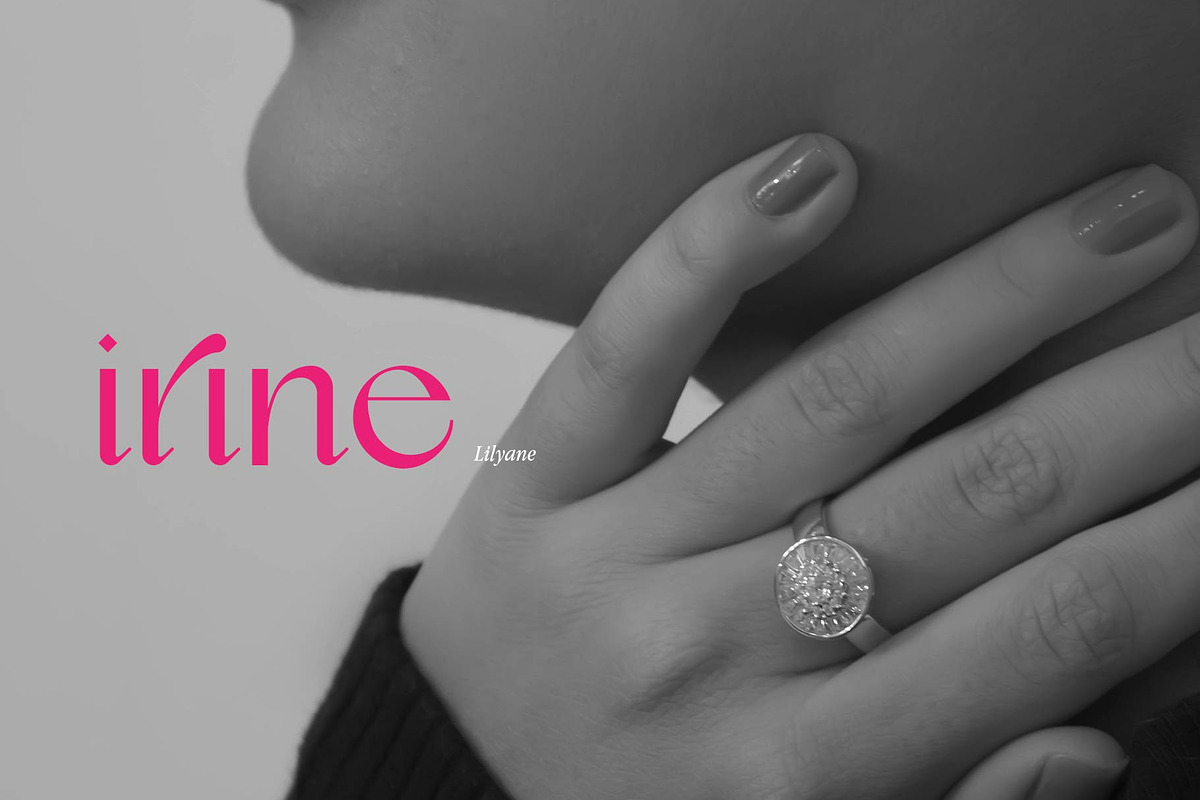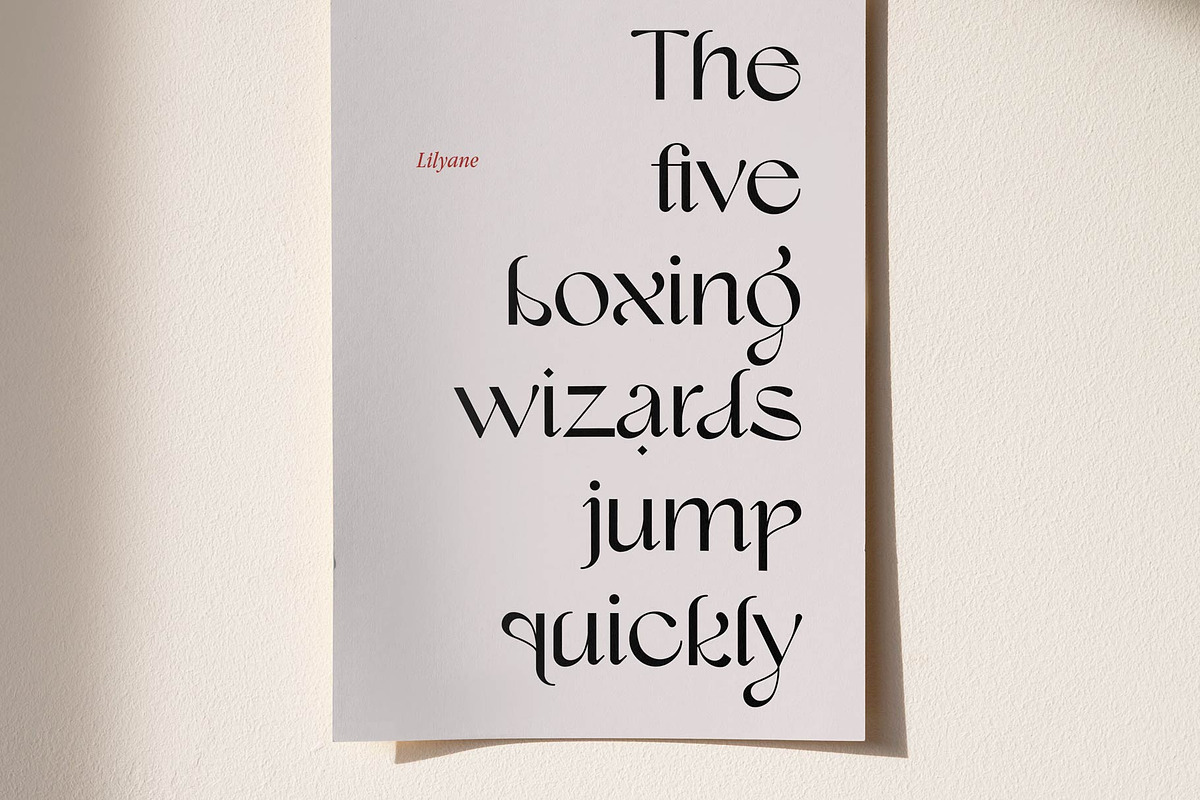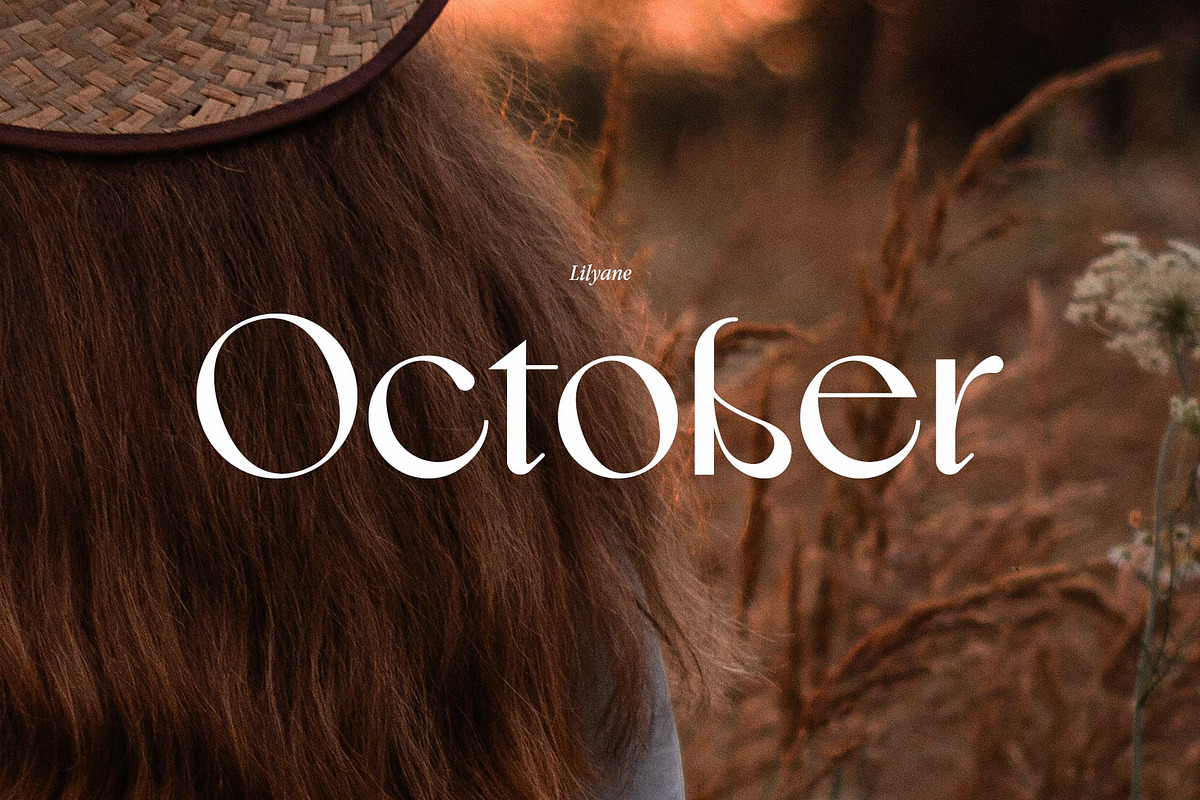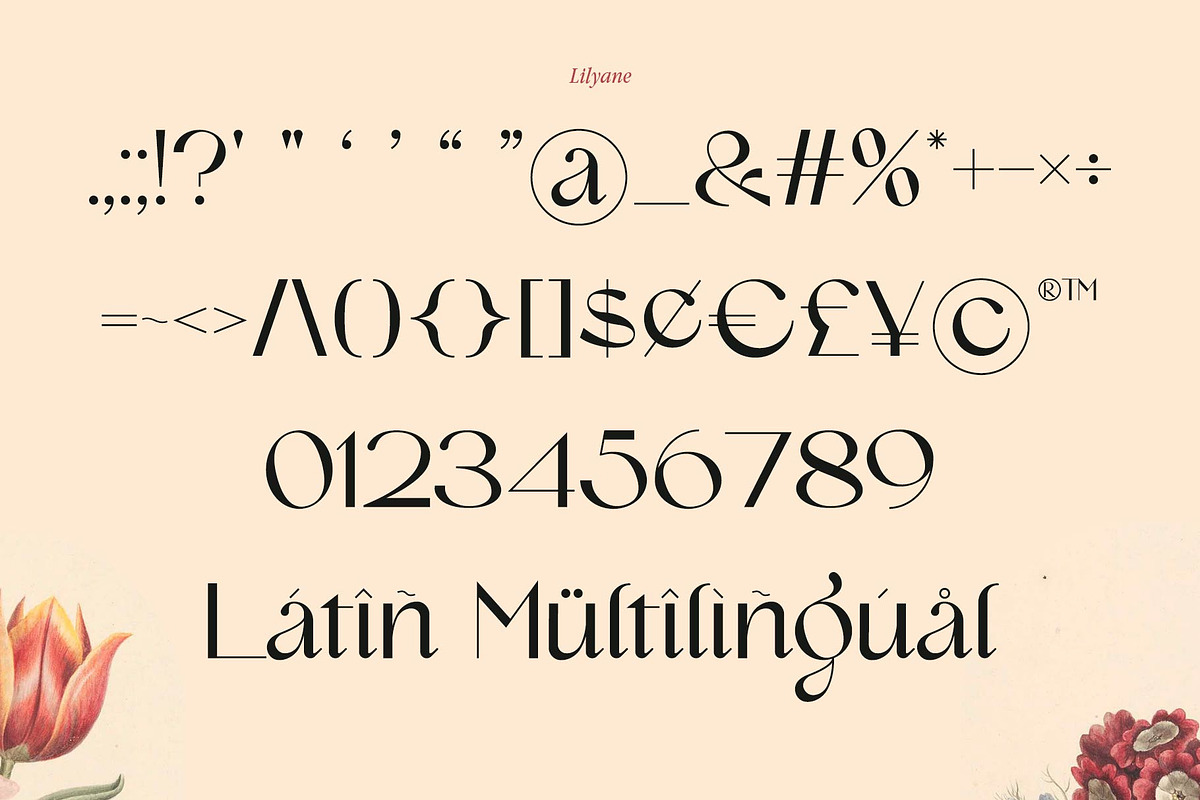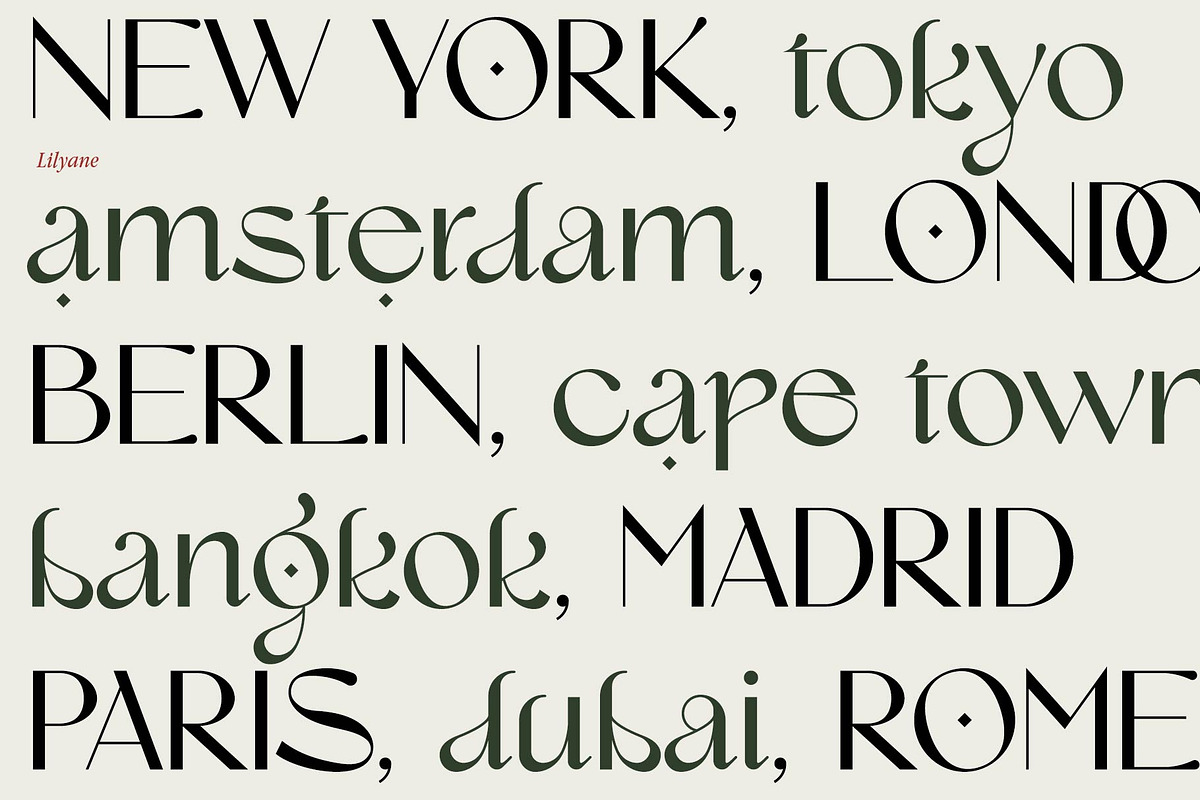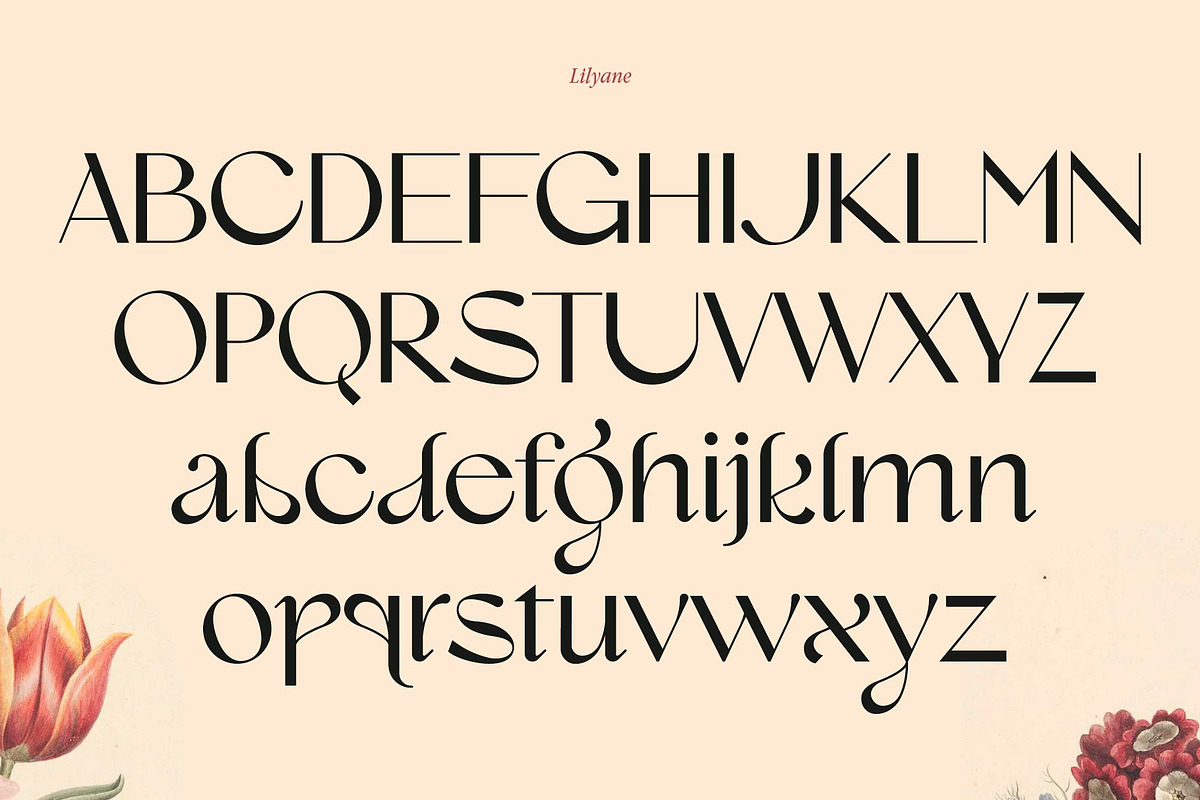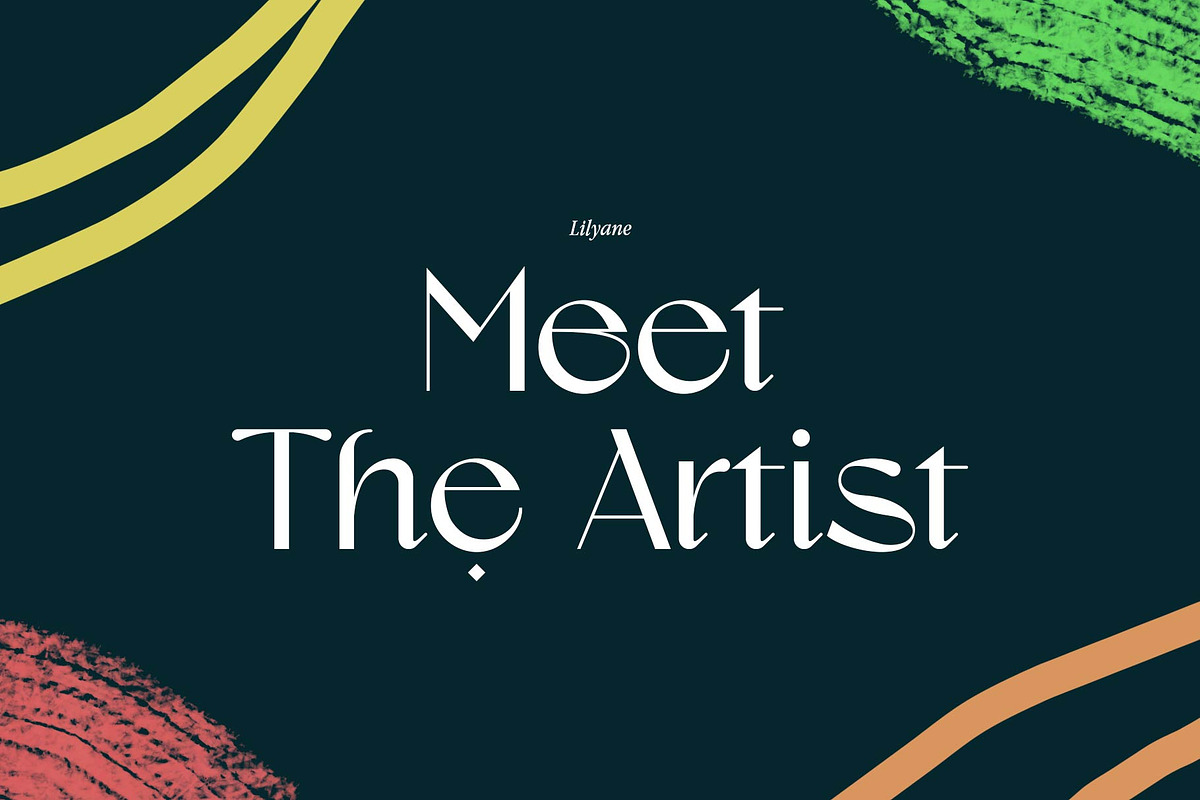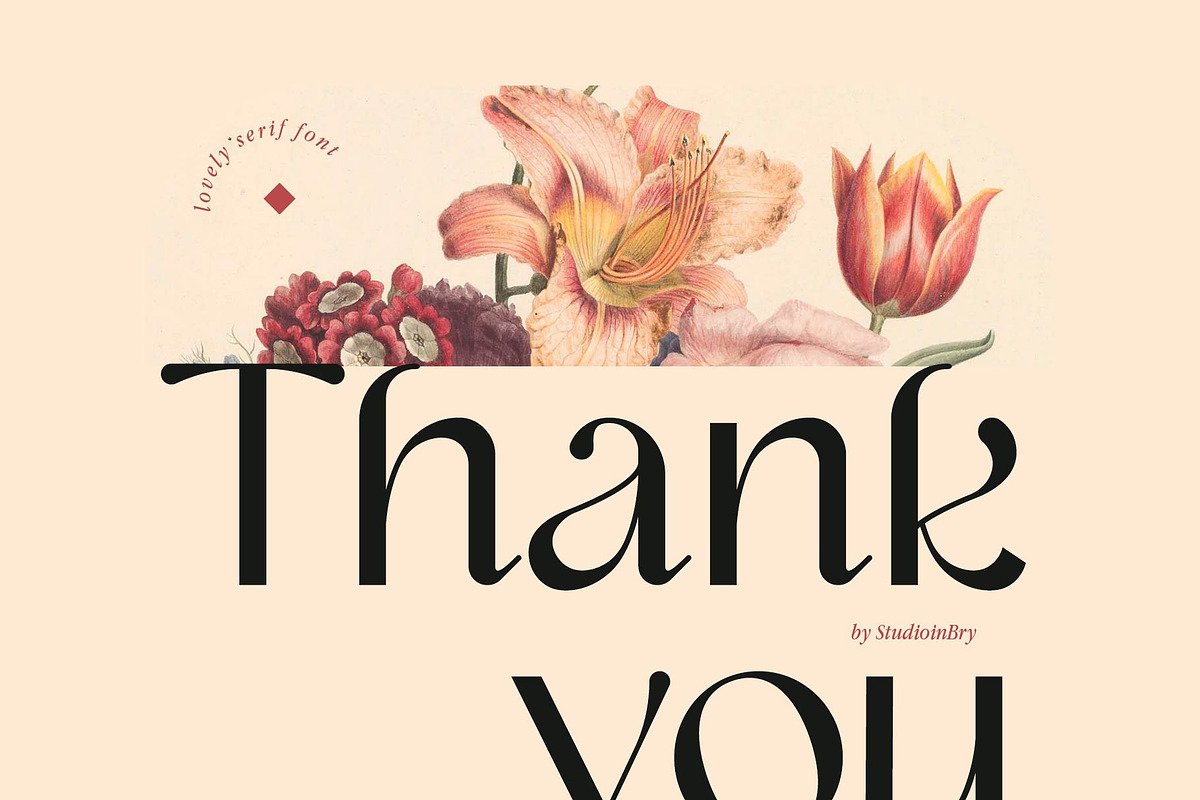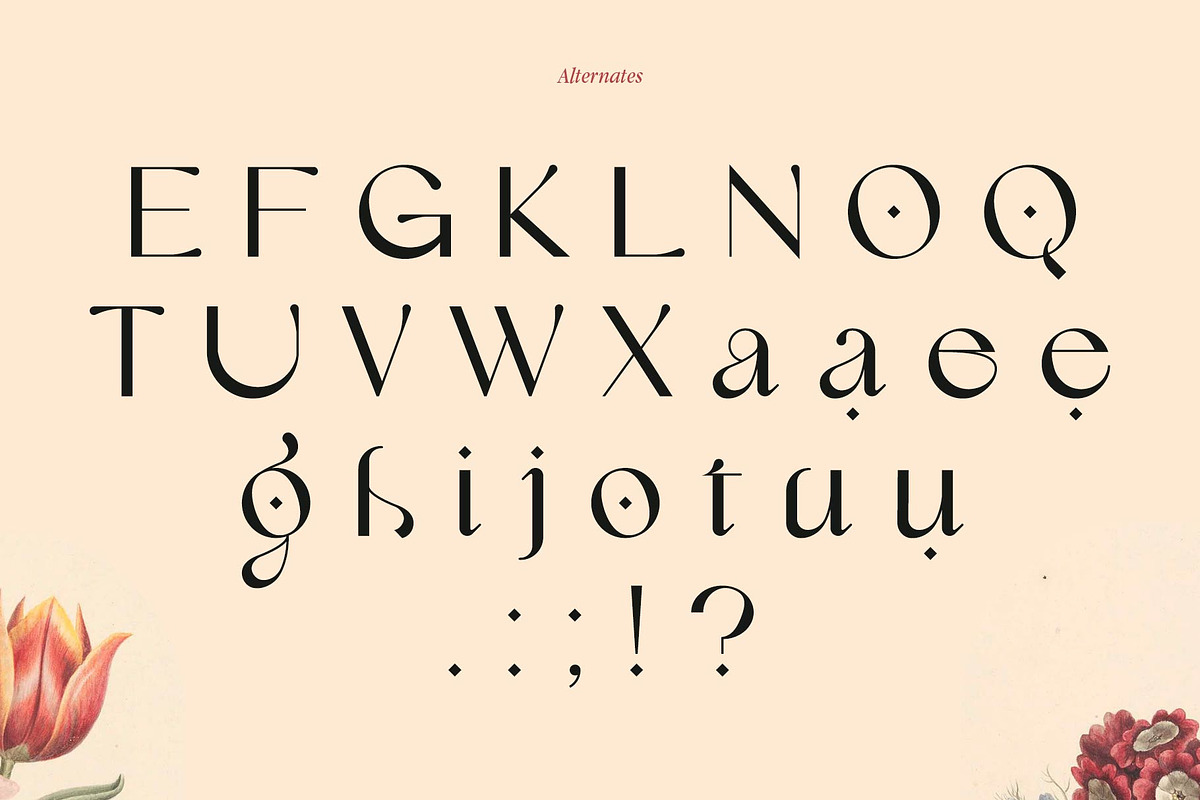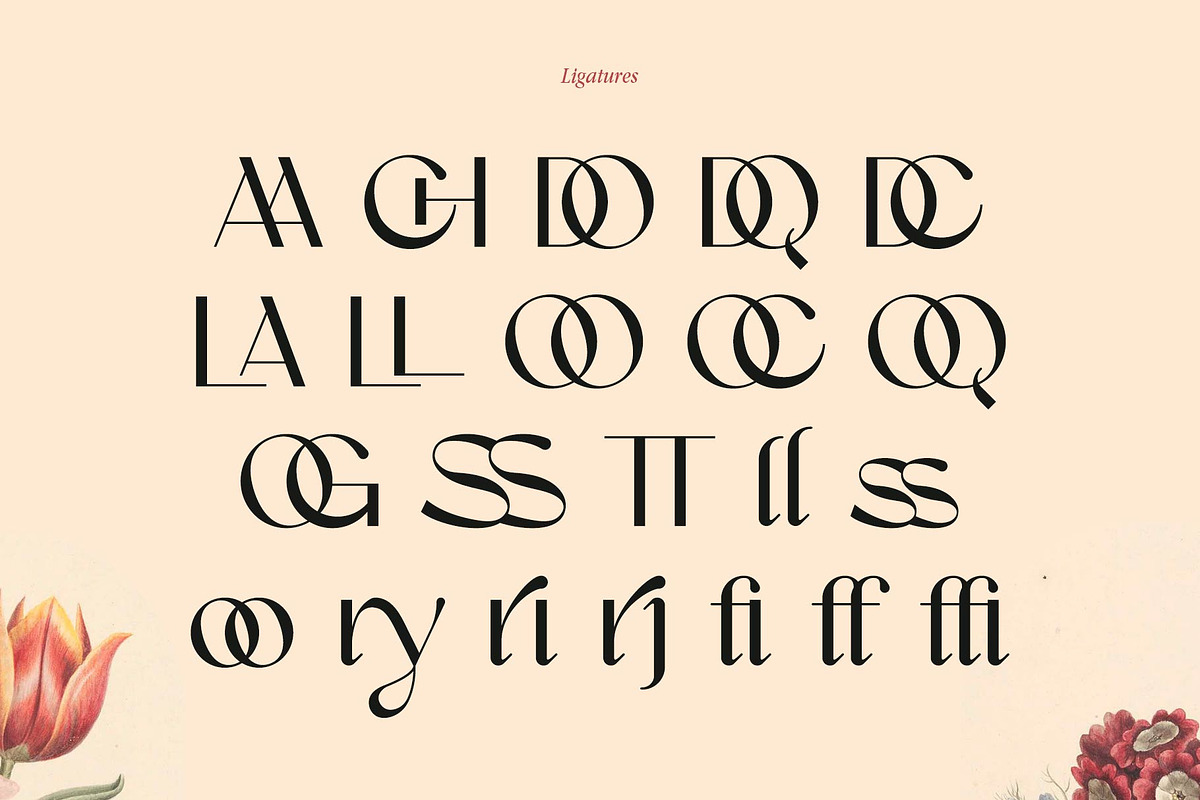
Lilyane - A Lovely Font
Introducing Lilyane. A Modern, Elegant, Lovely Display Serif font. You can use it for branding, social media, posters, packaging, & more.
UPPERCASE, Lowercase, Numbers, Punctuation.
Alternates & Ligatures.
Latin Multilingual Support.
Elevate your designs with Lilyane Font, a sophisticated display font defined by sleek lines and refined curves. Crafted for high-end branding, editorial layouts, and luxury packaging, it delivers an effortless sense of class and exclusivity. What a Beauty!